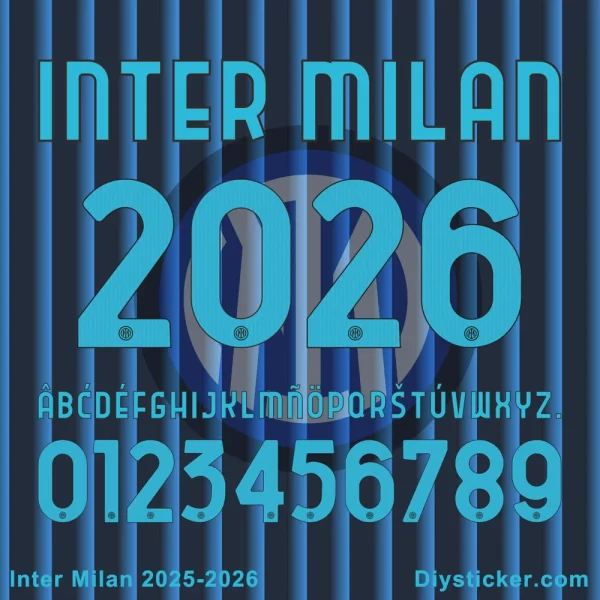
Design with the Pride of the Nerazzurri: The Inter Milan 2025-26 Font
Capture the spirit of the Italian giants with the Inter Milan 2025-2026 Font. This officially-styled typeface is designed to reflect the power and prestige of FC Internazionale Milano, perfect for fans, designers, and creators producing authentic jerseys, fan merchandise, and digital graphics for the upcoming season.